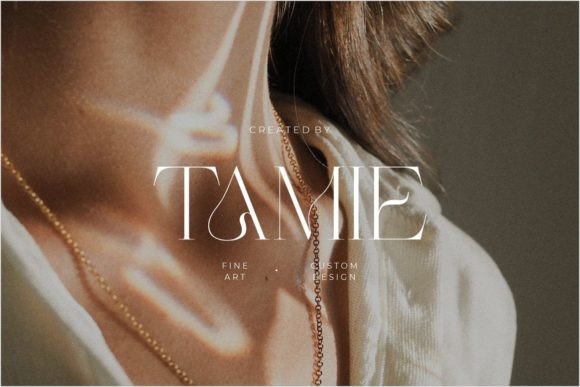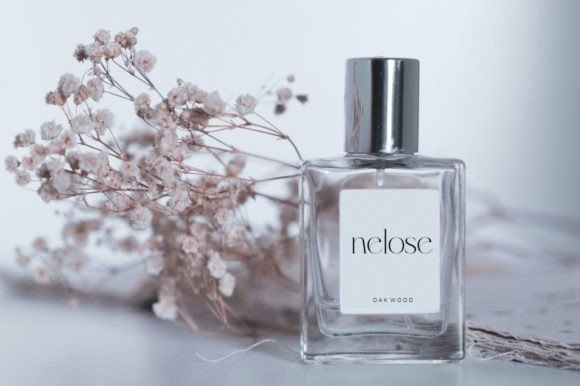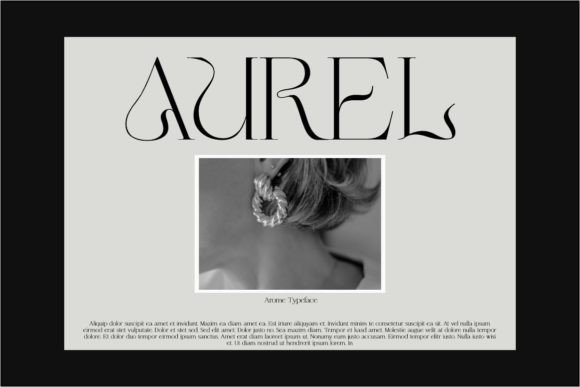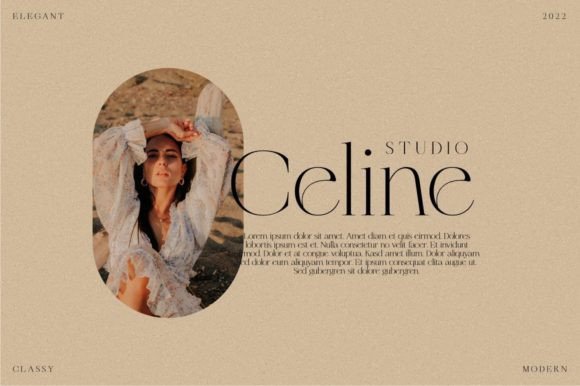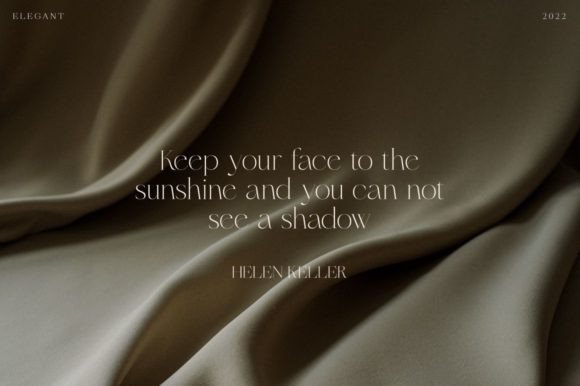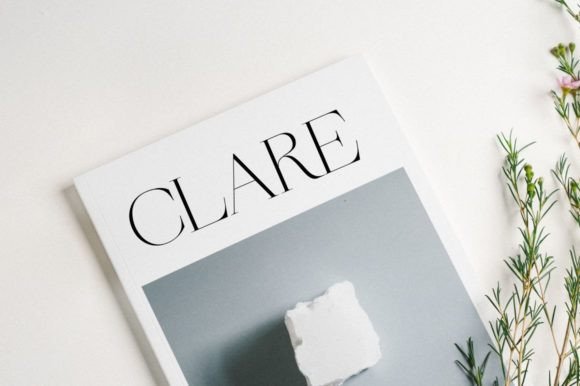
Arome Font: Elevate Your Designs with Elegance and Versatility
Are you on the hunt for a font that exudes style, sophistication, and elegance? Look no further than Arome Font, a stunning serif font that is sure to capture your heart. With its incredibly versatile style, Arome Font is perfect for creating a wide range of designs, from gorgeous wedding invitations and beautiful stationery art to eye-catching social media posts and more.
The Characteristics of Arome Font
Arome Font is a beautifully crafted serif font that boasts an impressive array of characteristics, making it an ideal choice for designers and crafters. Some of its key features include:
- Elegant and Refined: Arome Font features delicate lines, curves, and flourishes that give it an air of sophistication and refinement.
- Versatile: Whether you’re designing a wedding invitation, a social media post, or a piece of stationery art, Arome Font adapts seamlessly to any style or theme.
- Highly Legible: The font’s clear and concise design ensures that your text is easy to read, making it perfect for both digital and print applications.
Uses for Arome Font
Arome Font is an incredibly versatile font that can be used in a multitude of ways. Here are just a few ideas to get you started:
- Wedding Invitations: Create stunning wedding invitations that set the tone for a beautiful and elegant celebration.
- Stationery Art: Add a touch of sophistication to your stationery art with Arome Font’s delicate lines and curves.
- Social Media Posts: Make your social media posts stand out with Arome Font’s elegant and refined style.
- Branding and Packaging: Use Arome Font to create a cohesive brand identity that exudes style and sophistication.
Why Choose Arome Font?
With so many fonts available, why choose Arome Font? Here are just a few reasons why Arome Font stands out from the crowd:
- Unique and Exclusive: Arome Font is a one-of-a-kind font that will set your designs apart from the rest.
- Easy to Use: Arome Font is incredibly easy to use, making it perfect for designers and crafters of all skill levels.
- High-Quality: Arome Font is a high-quality font that is designed to deliver exceptional results in any design application.
Tips for Using Arome Font
To get the most out of Arome Font, here are a few tips to keep in mind:
- Experiment with Different Sizes: Arome Font looks stunning in a variety of sizes, so don’t be afraid to experiment to find the perfect size for your design.
- Pair with Other Fonts: Arome Font pairs beautifully with other fonts, so try combining it with a sans-serif font for added contrast.
- Use it for Headings and Titles: Arome Font is perfect for headings and titles, where its elegant and refined style can really shine.
In conclusion, Arome Font is a stylish and incredibly elegant serif font that is sure to elevate your designs to new heights. With its versatile style, high-quality design, and ease of use, Arome Font is perfect for designers and crafters looking to create stunning wedding invitations, beautiful stationery art, eye-catching social media posts, and more. So why wait? Fall in love with Arome Font today and take your designs to the next level!